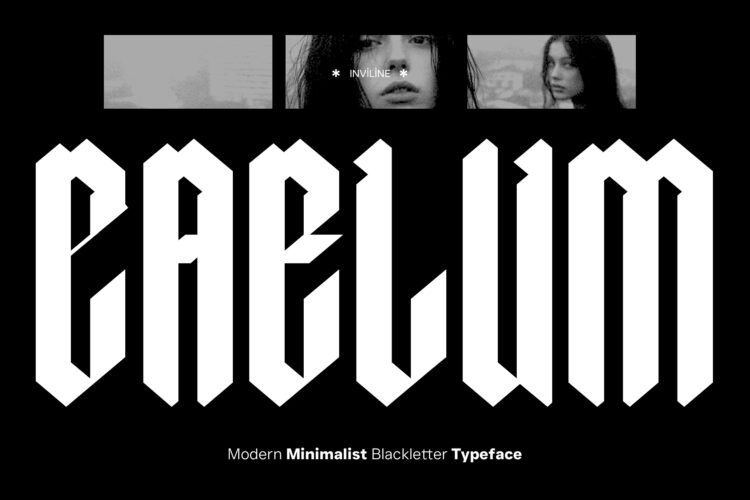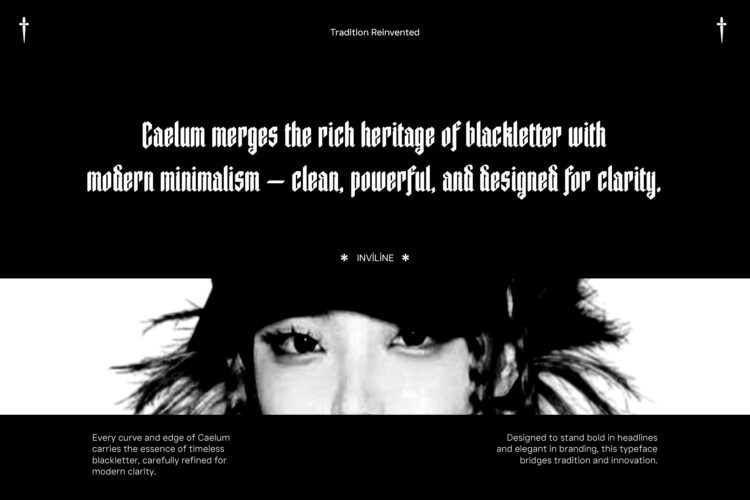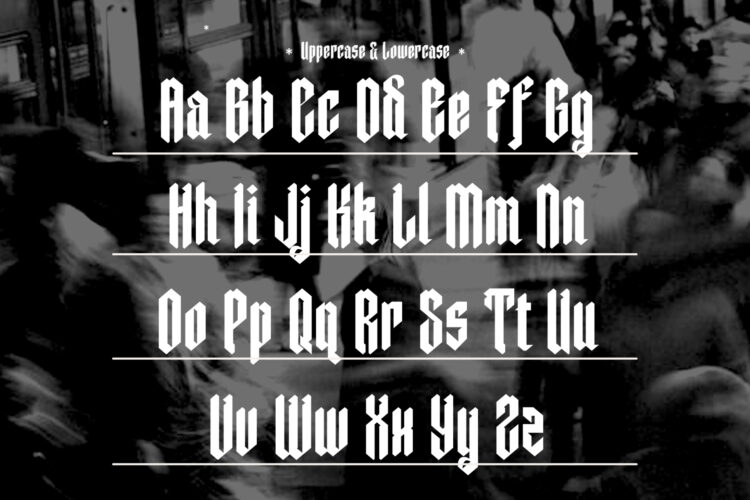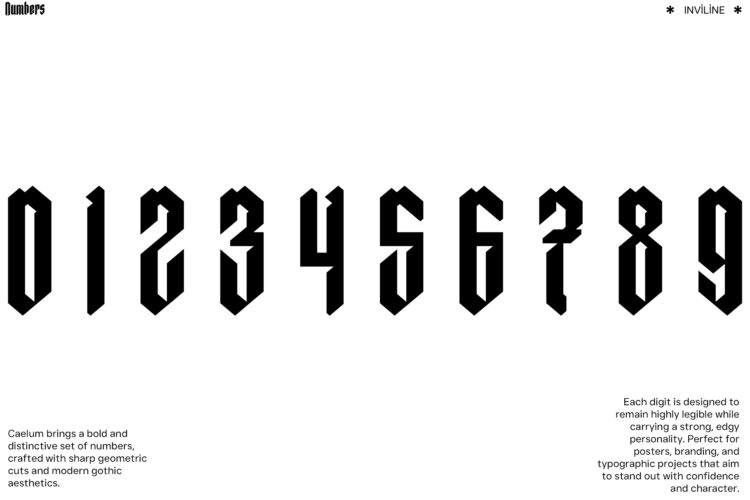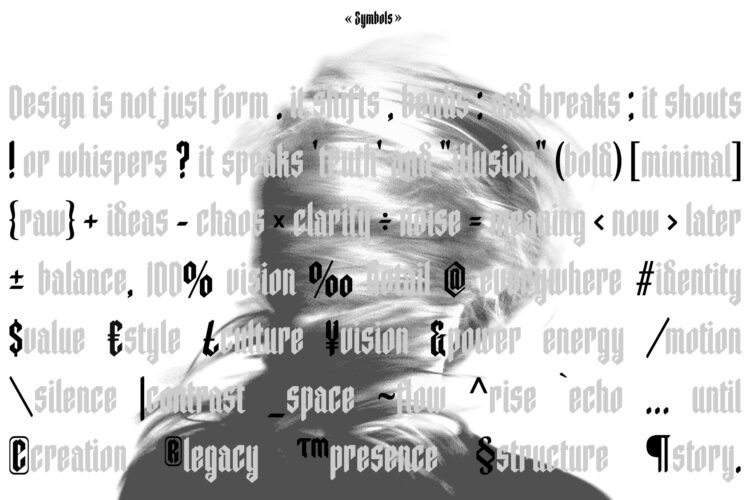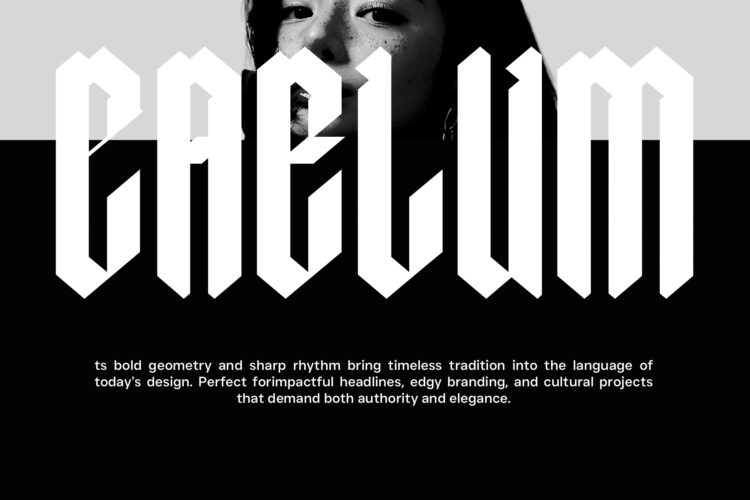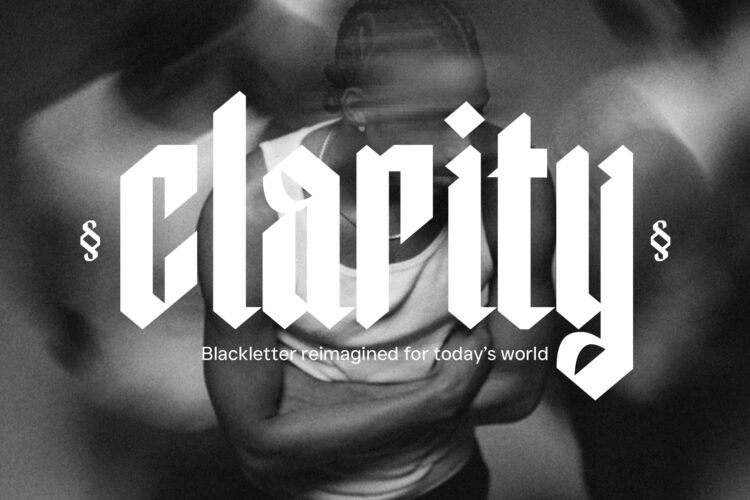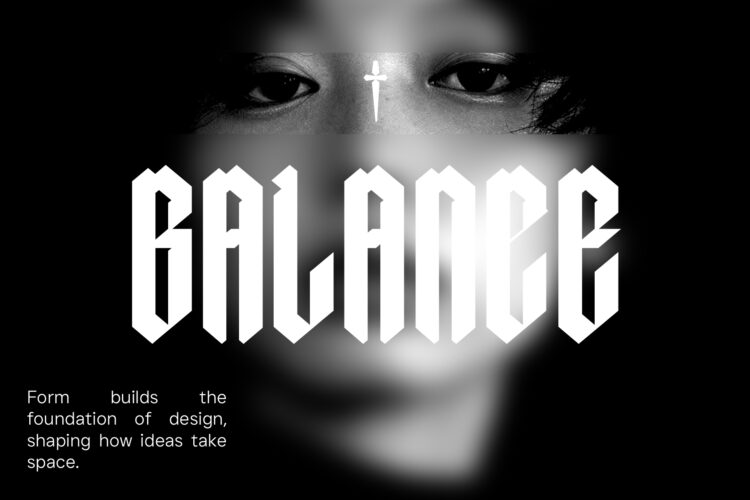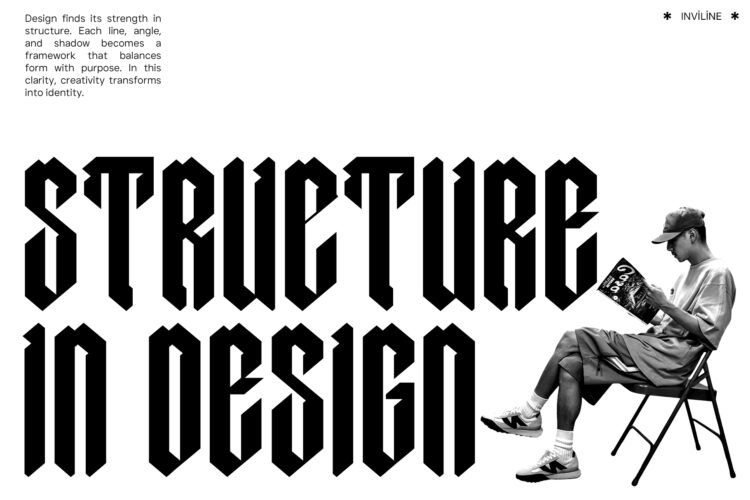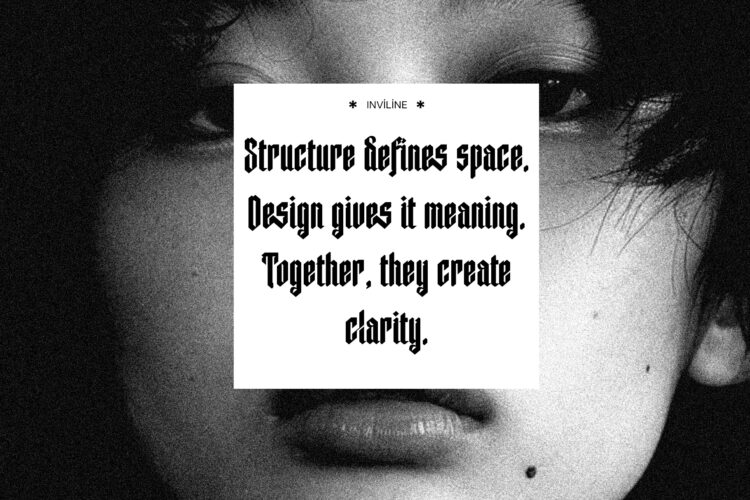
Caelum – Modern Blackletter Font
Caelum is a modern blackletter typeface designed with a minimalist twist. Combining the bold spirit of gothic calligraphy with clean, geometric cuts, Caelum delivers a sharp and futuristic edge while maintaining strong legibility. Each letterform is crafted to evoke power, clarity, and tension—perfectly suited for projects that demand attitude, bold identity, or an avant-garde touch.
Whether you’re designing album covers, fashion branding, experimental posters, or editorial titles, Caelum helps you stand out with confidence.
- Uppercase & Lowercase Letters
- Numerals (0–9) with unique styling
- Punctuation & Extended Symbols
- Ligatures & Alternates
- Multilingual Support
- Modern Gothic Aesthetic
- Clean Vertical Construction
Perfect For :
- Music Branding (metal, techno, punk)
- Experimental Posters & Flyers
- Album Covers
- Fashion Editorial Titles
- Tattoo-Inspired Projects
- Gothic Streetwear Branding
- Dark Web Design & UI Titles
- Book Covers (Fantasy, Dystopian, Horror)
- YouTube/Streaming Thumbnails
- Subculture Visual Identity